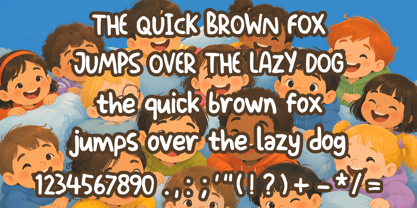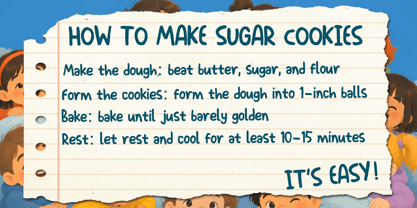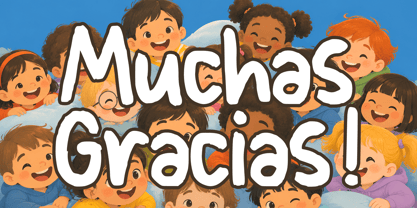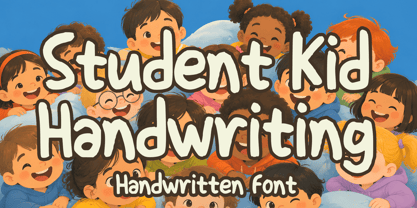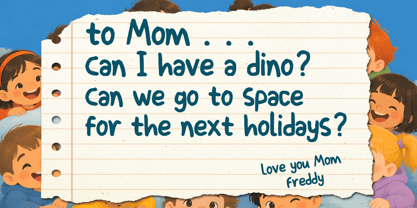
Student Kid Handwriting
Die Schriftfamilie Student Kid Handwriting wurde von Gabriel Valentinus entworfen und von Mvmet veröffentlicht. Student Kid Handwriting enthält 1 Stile. Mehr über diese Familie
Introducing the Student Kid Handwriting font – a versatile and playful comic marker typeface, ideal for child-centric environments. This font effortlessly brings life to a wide range of design projects, elevating them to new heights. Its potential applications are extensive, from designing unique stickers and innovative t-shirt graphics to creating striking logos, captivating book and magazine covers, and delightful cartoon illustrations. Incorporate it into your daily typing routine to add an extra dash of zest. A guaranteed supercharger for your designs, the Student Kid Handwriting font will invigorate your work with its standout cool factor!
Designer: Gabriel Valentinus
Foundry: Mvmet